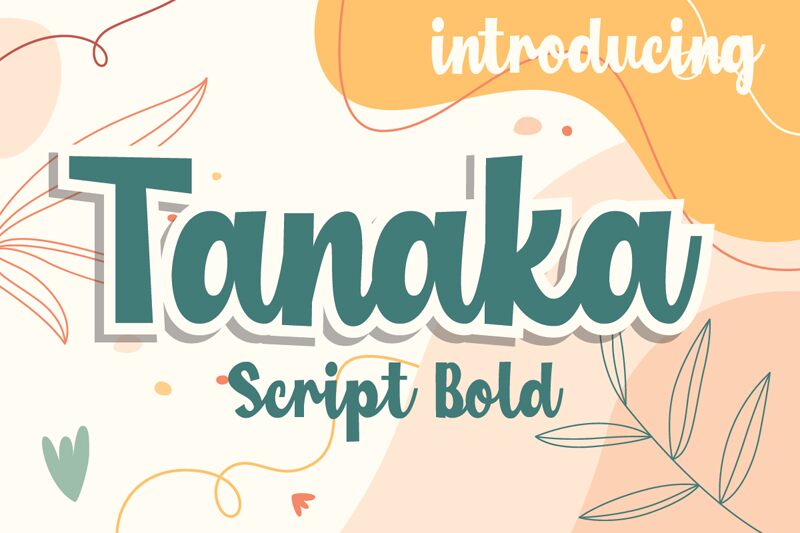
Tanaka, the bold script font by Hallotudio, adds a playful touch to any project.
With its fluid strokes and charming quirks, it's perfect for children's books, greeting cards, and whimsical branding. Whether you're designing a vibrant party invitation or creating a comic strip that bursts with personality, Tanaka will captivate your audience with its lively energy.
Let your creativity flow as this font brings your words to life – it's time to make a statement that stands out from the crowd.